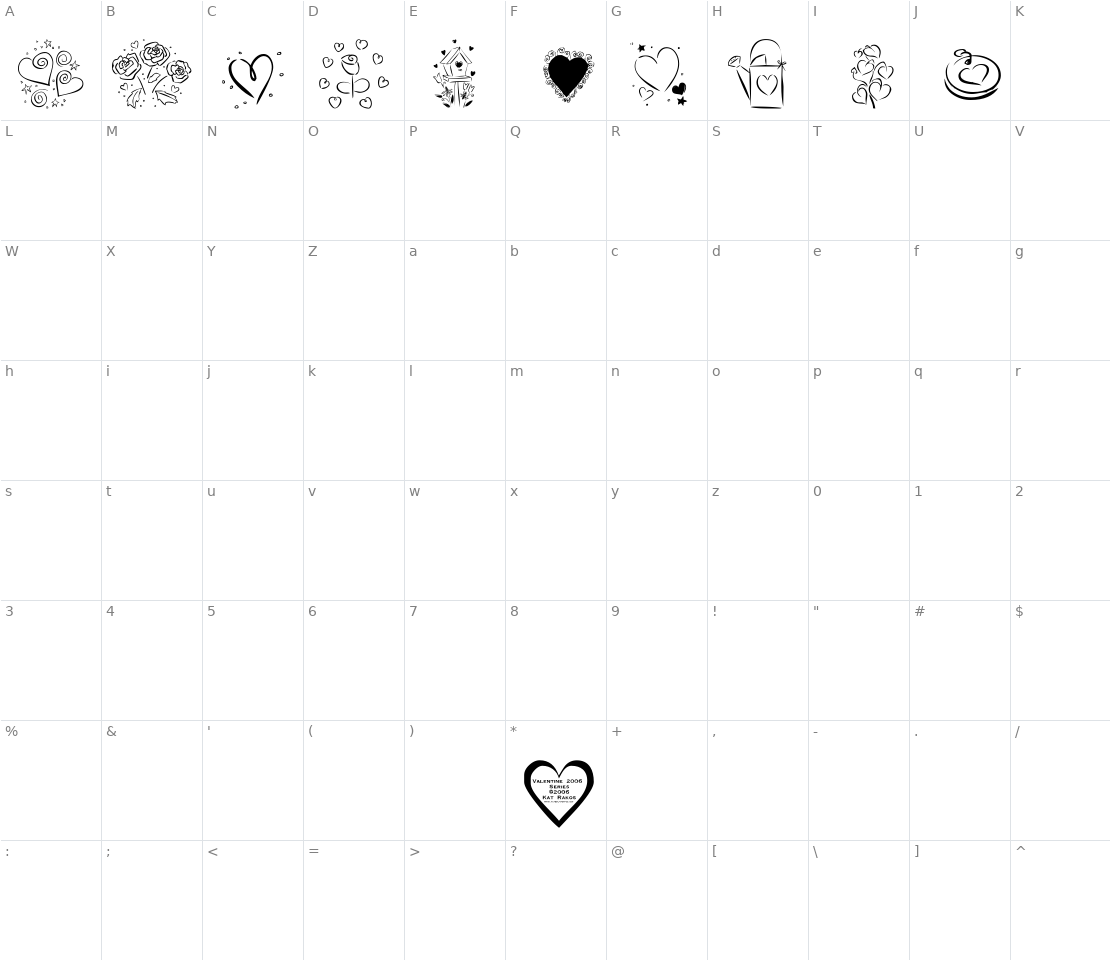
KR Valentines 2006
by Kat's Fun Fonts
KR Valentines 2006 is a dingbat font from Kat's Fun Fonts filled with heart shapes, love-themed symbols, and romantic ornaments. It's the kind of set you reach for when making Valentine's Day cards, wedding invitations, or scrapbook layouts where you need quick decorative accents without hunting for clip art. Purely symbolic, no alphabet here, just a collection of themed illustrations mapped to keystrokes.